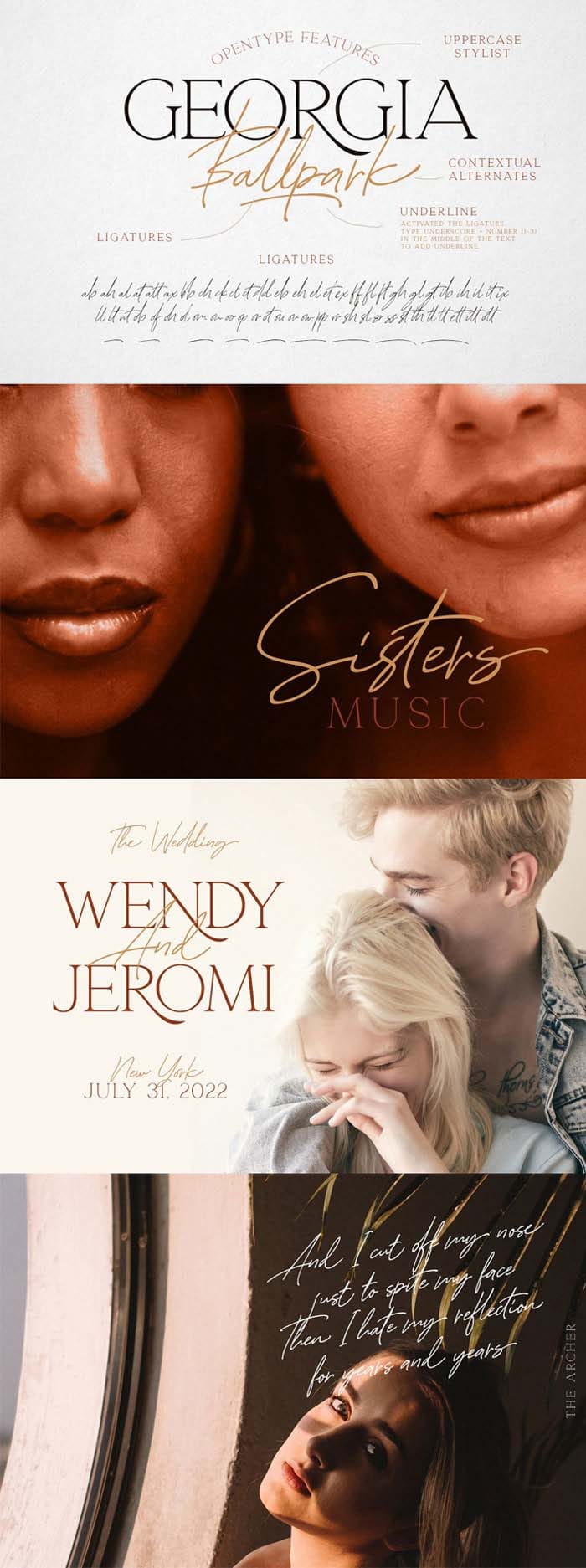
Georgia Ballpark Font Duo
Georgia Ballpark is the perfect combination of modern serif with a signature script font. Contain two fonts, the delicate modern serif, and a free handwriting script. This font duo also supports multilingual, number and symbol, end swash, and many ligatures. Also, this font is already PUA Encoded. You Can Also Download Marney Holland Stylish Font Duo.
Georgia Ballpark Font Duo